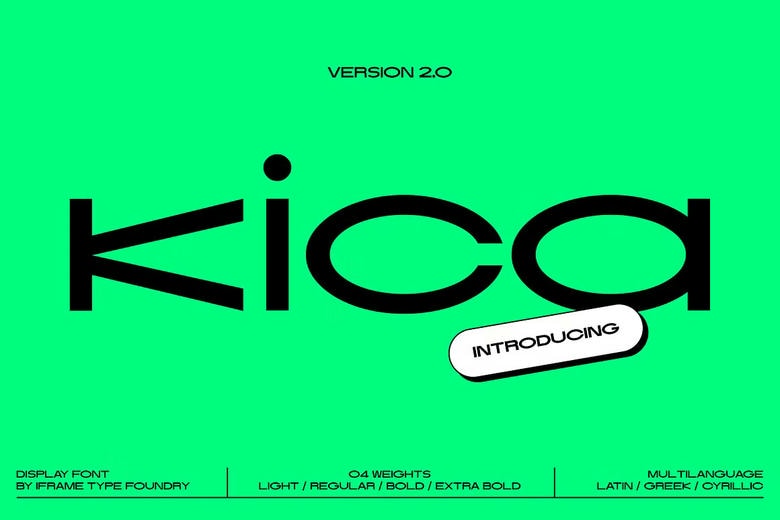
Kica Font
Kica is a modern display font with clean lines, bold strokes, and geometric shapes. It was created to make a strong visual impact and grab attention.
Kica stays easy to read even at small sizes, thanks to its clear letterforms and generous spacing. It comes in light, regular, and bold weights, so you can use it for many different design projects.
Kica’s modern style works well for eye-catching headlines, logos, and other graphic designs. Its bold look helps your project stand out and leaves a strong impression.
Kica Display Font